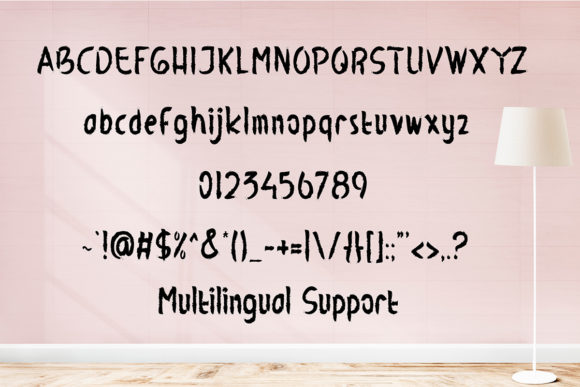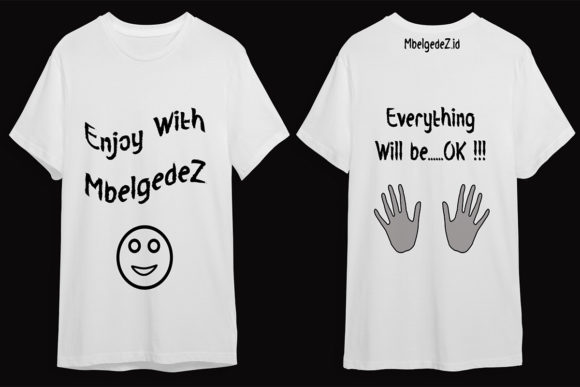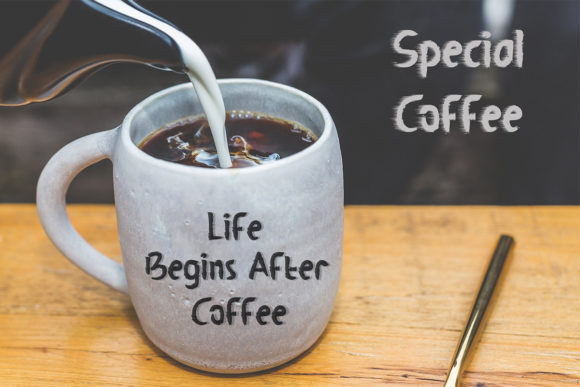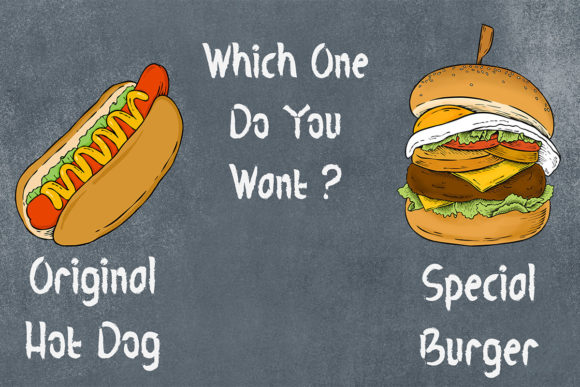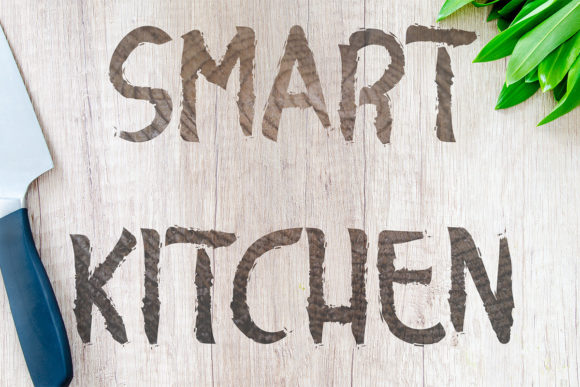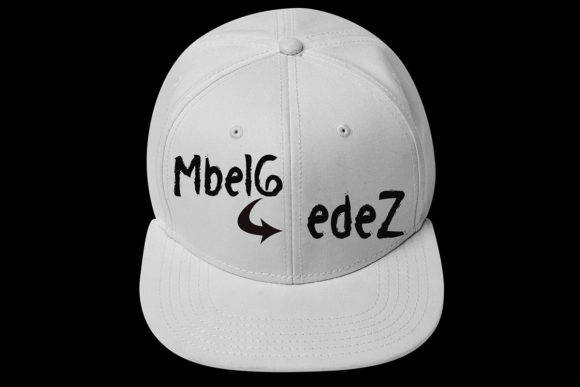
Introduction to MbelgedeZ Font
Have you ever found yourself in the midst of a creative project, struggling to convey the perfect message? Perhaps you’re working on a design that requires a touch of elegance, but the right font has been elusive. This is where the MbelgedeZ Font comes in – a natural and authentic font that exudes confidence and style, making it an invaluable resource for designers.
With its unique charm, the MbelgedeZ Font is perfect for any design project that demands a high-quality, professional look. Whether you’re working on a logo, brochure, or social media graphic, this font is sure to elevate your design and leave a lasting impression. Plus, with a transparent background and free download option, you can incorporate it seamlessly into your creative project.
- Designed with a modern aesthetic, making it an excellent choice for contemporary design projects and branding materials.
- Part of a comprehensive font family, offering a range of styles and weights to enhance your design and add depth.
I recently stumbled upon the MbelgedeZ Font while searching for a unique design resource to elevate my creative project. This font is part of a collection that offers a high quality, versatile option for designers.
Here’s what I like about the MbelgedeZ Font: ✨
- It has a wide range of characters, making it suitable for both short and long-form text.
- The unique design makes it perfect for creating eye-catching headlines and titles.
- The font may not be suitable for body text, as it can be quite difficult to read.
- The character set is limited compared to other fonts in the same category.
Overall, I’m impressed with the MbelgedeZ Font’s unique design and versatility. While it may have some limitations, it’s a valuable addition to any designer’s toolkit, especially for creative projects that require a distinctive look.
The MbelgedeZ Font is a high-quality design resource ideal for creative projects. It offers a unique and stylish appearance that can elevate your designs. One of its key features is a transparent background, allowing for seamless integration with various design elements.
To get the most out of the MbelgedeZ Font, use it in combination with other design elements that complement its unique style. Experiment with different font sizes and styles to achieve a cohesive and visually appealing design.
The MbelgedeZ Font is ideal for various creative projects, including:
– Branding and logos
– Brochures and flyers
– Website design